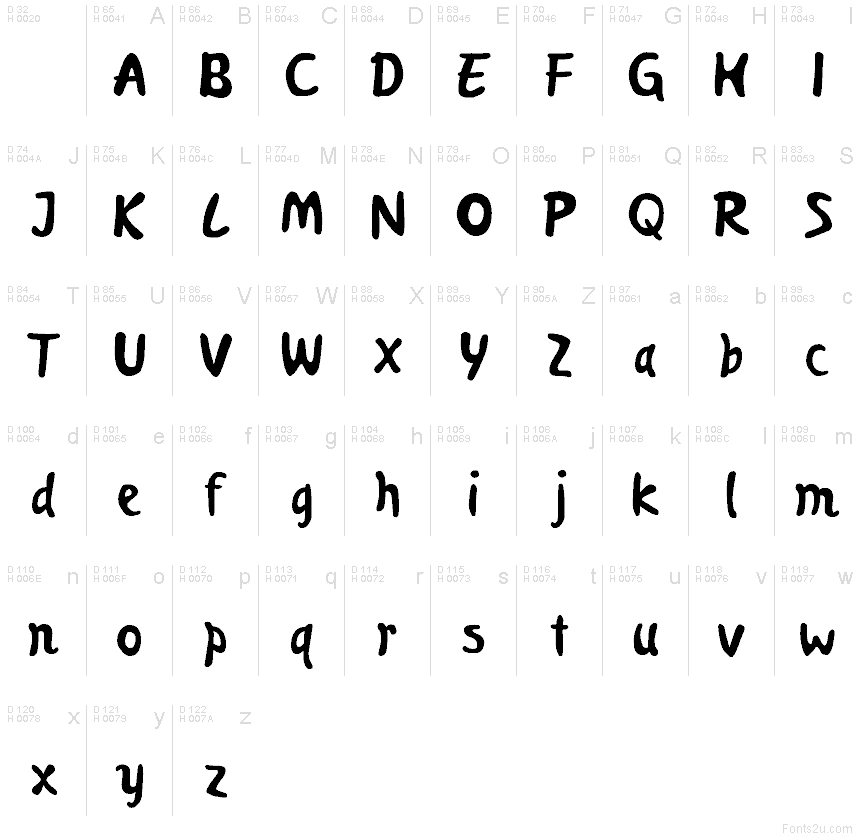
CS Bodega Regular Demo
CS Bodega font by Craft Supply Co. is a free bold brush display font that solves the “handmade vs. readable” dilemma. Its inky, rounded strokes feel freshly painted, with soft edges and a subtle bounce that adds warmth without sacrificing clarity. The rhythm is lively but controlled; generous counters and steady spacing keep headlines legible even at a glance.
This free font shines on café menus, farmers market signage, beverage labels, street food branding, event posters, and social media promos. Using CS Bodega, you get friendly energy that still looks polished. Pair it with a clean, neutral sans for supporting text, and let CS Bodega sit large with modest tracking to showcase those chunky, brushy curves.